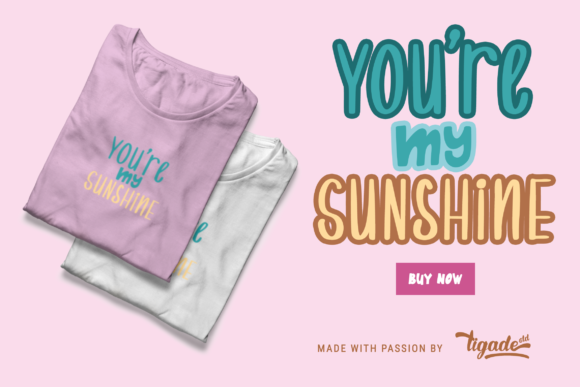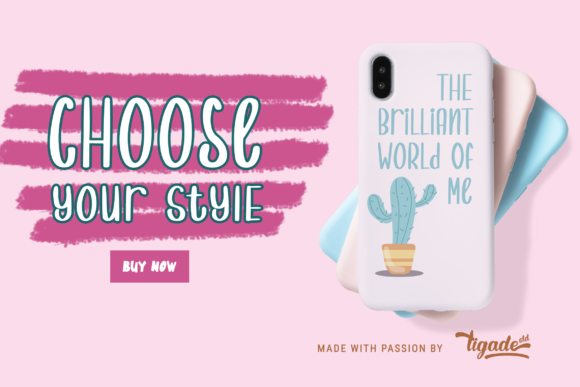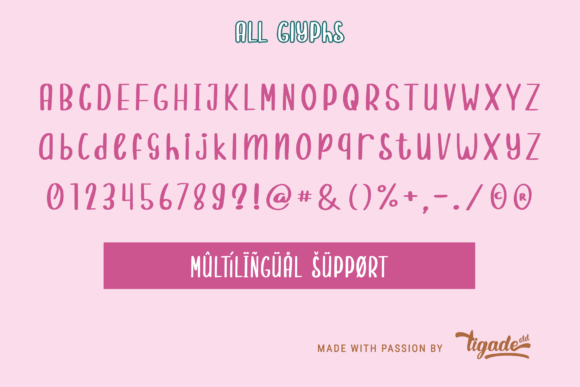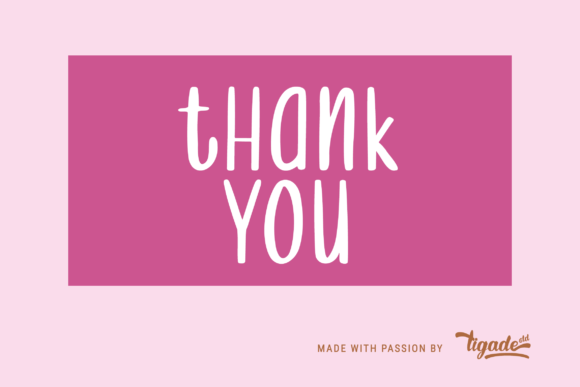
Randomly Cute Font
About Randomly Cute Font
Randomly Cute it’s an awesome handwritten font. It maintains its classy calligraphic influences while feeling contemporary and fresh. This versatility will appeal to a wide range of crafty ideas, from letterheads and titles, to stationery.